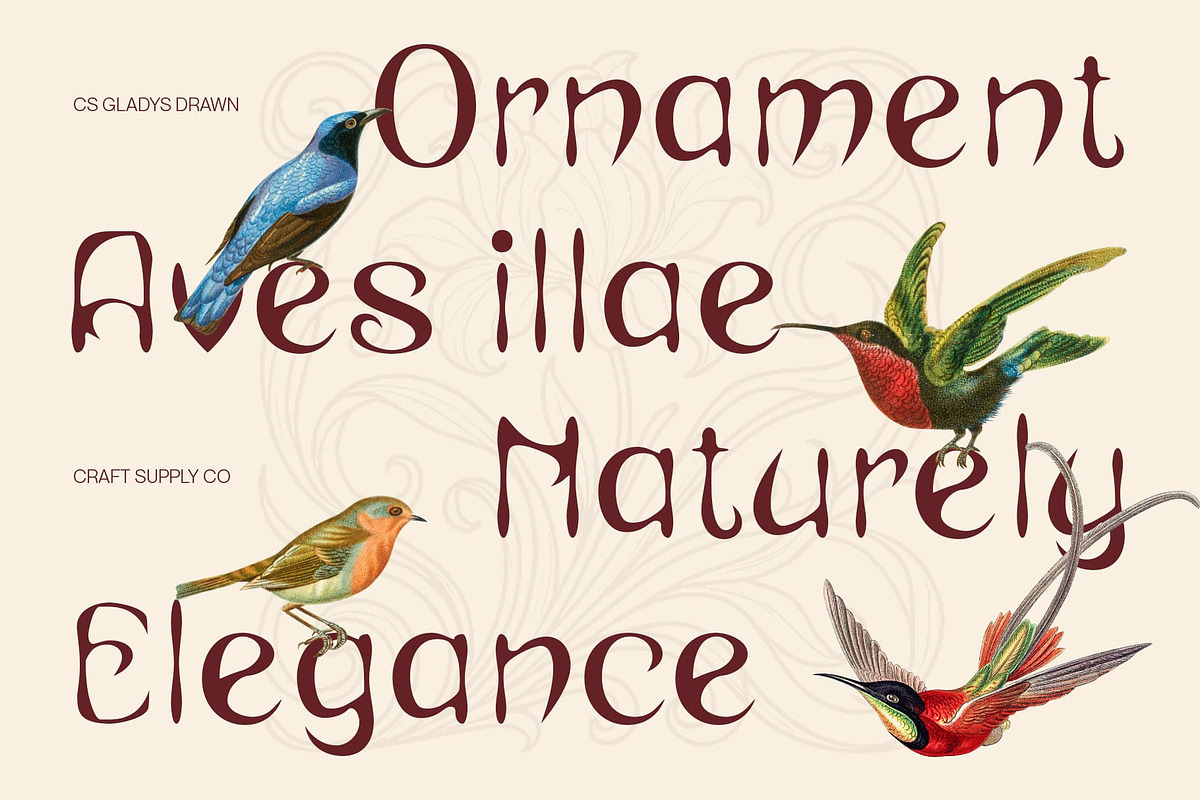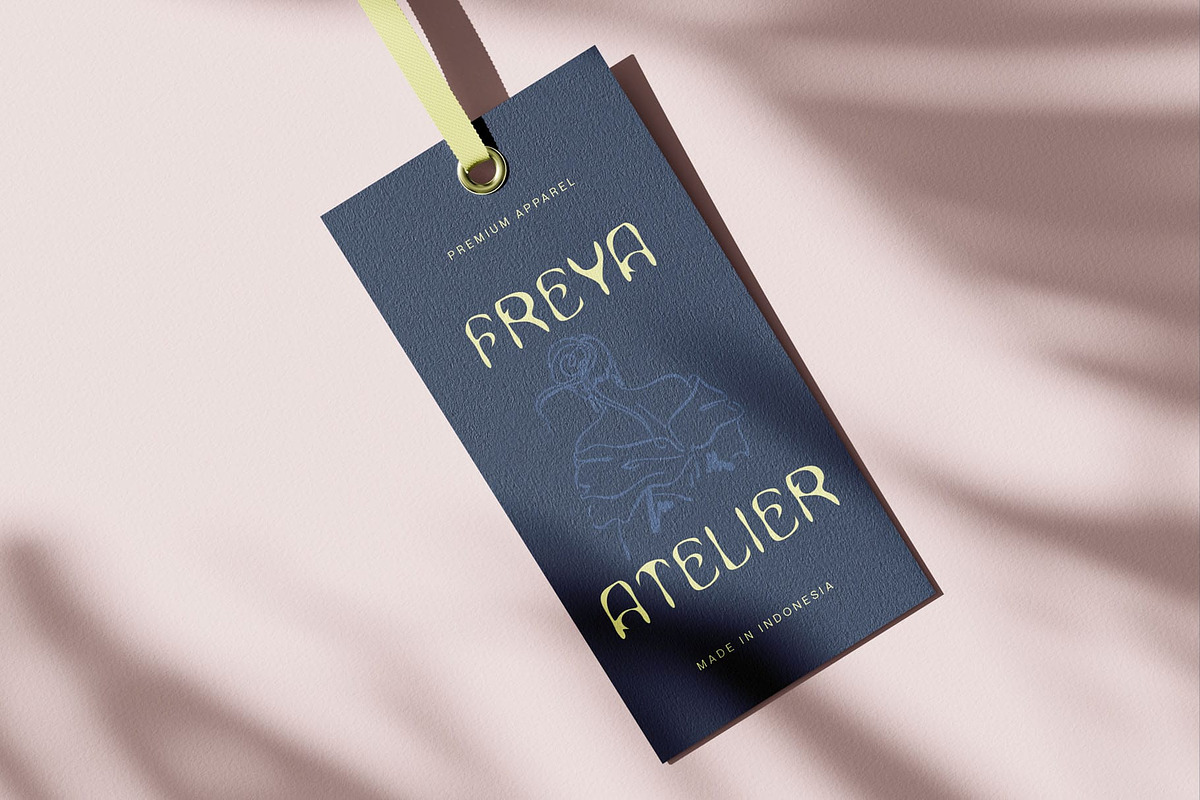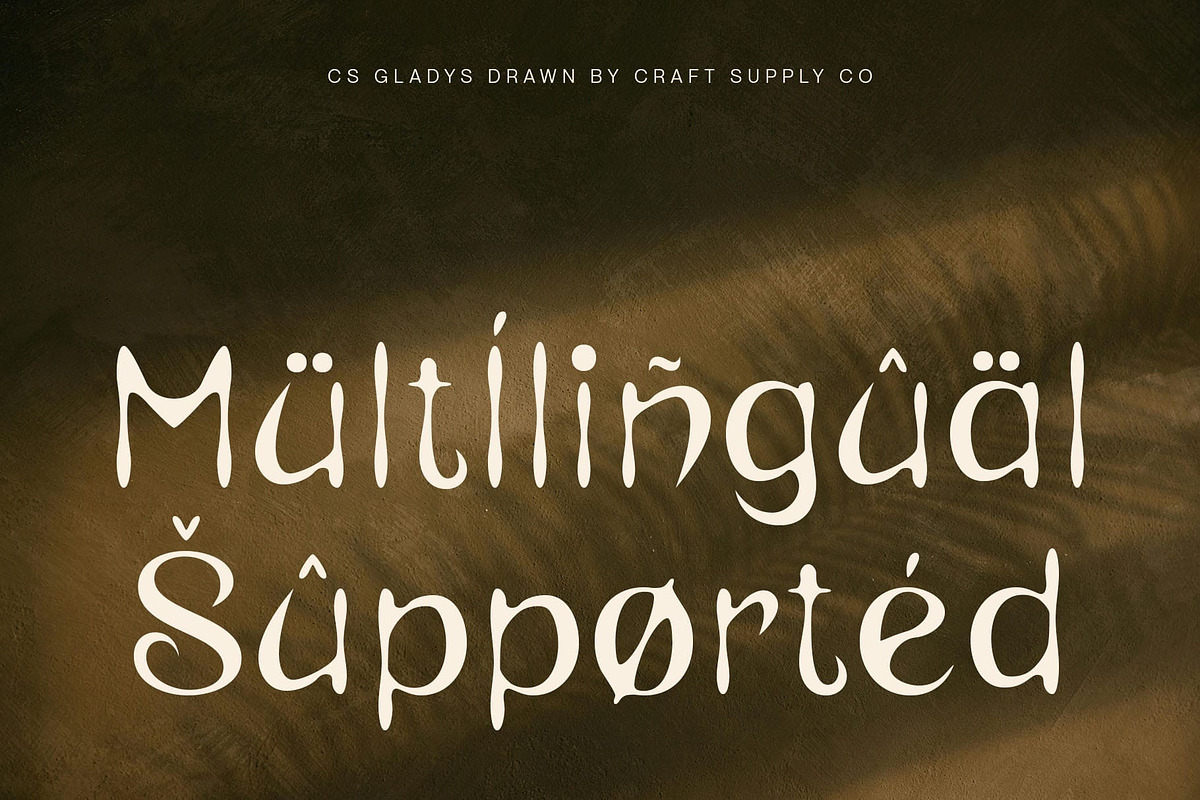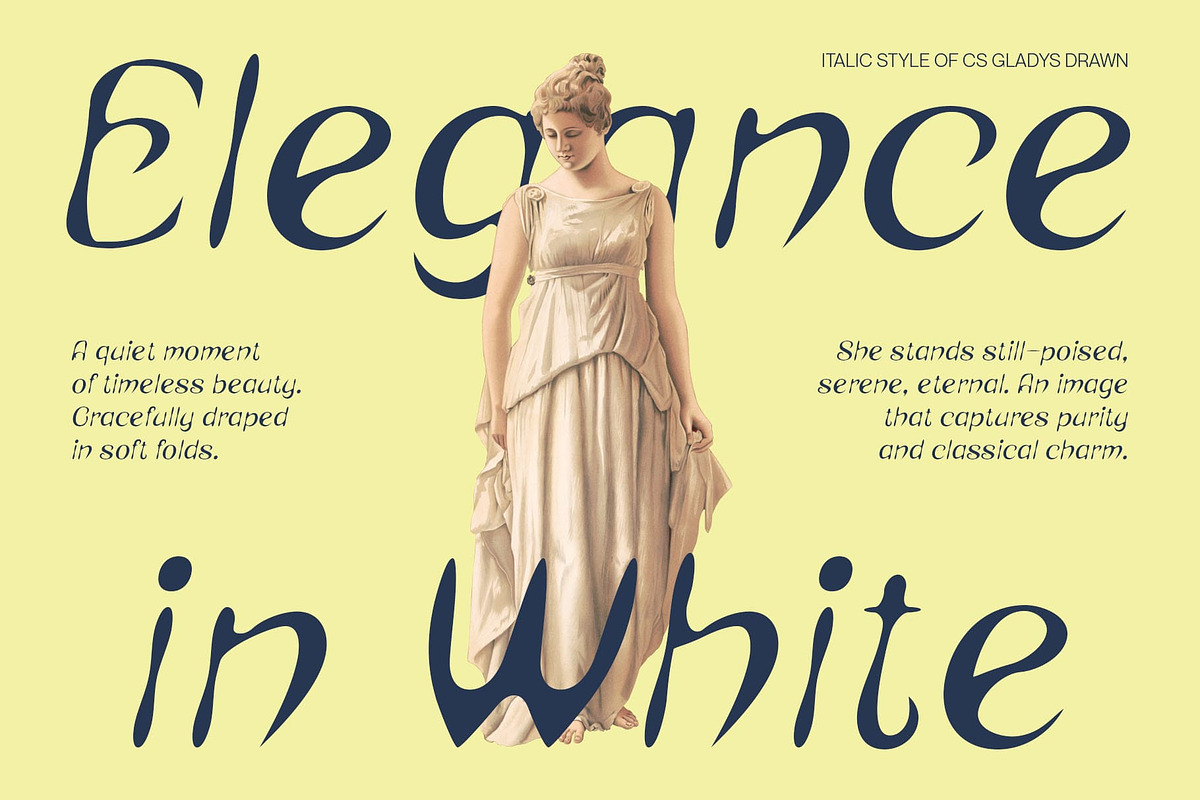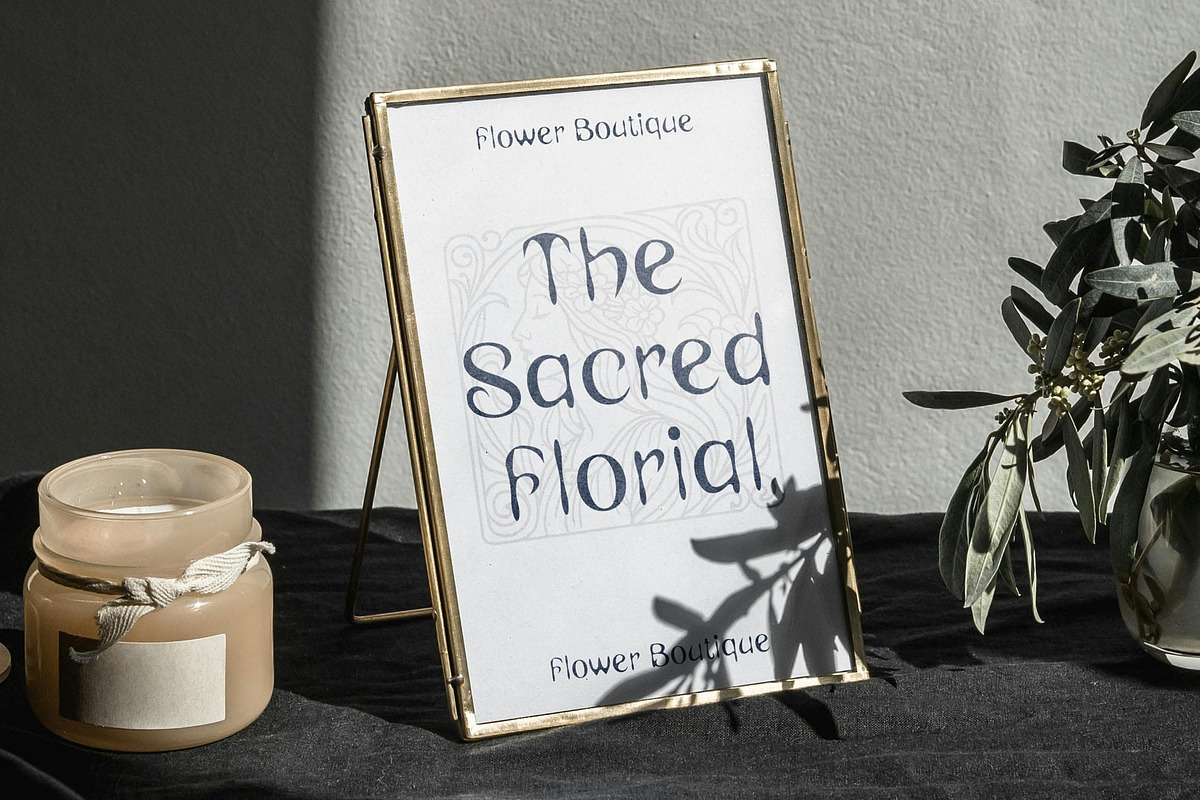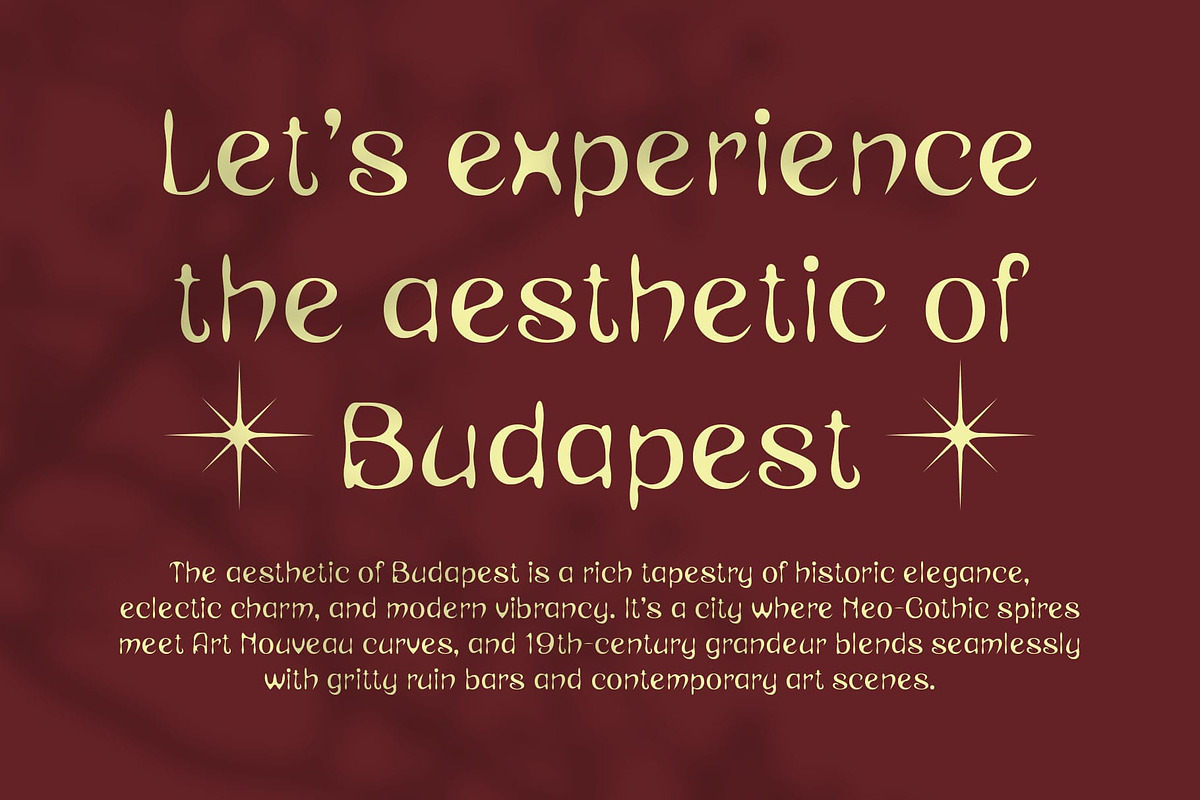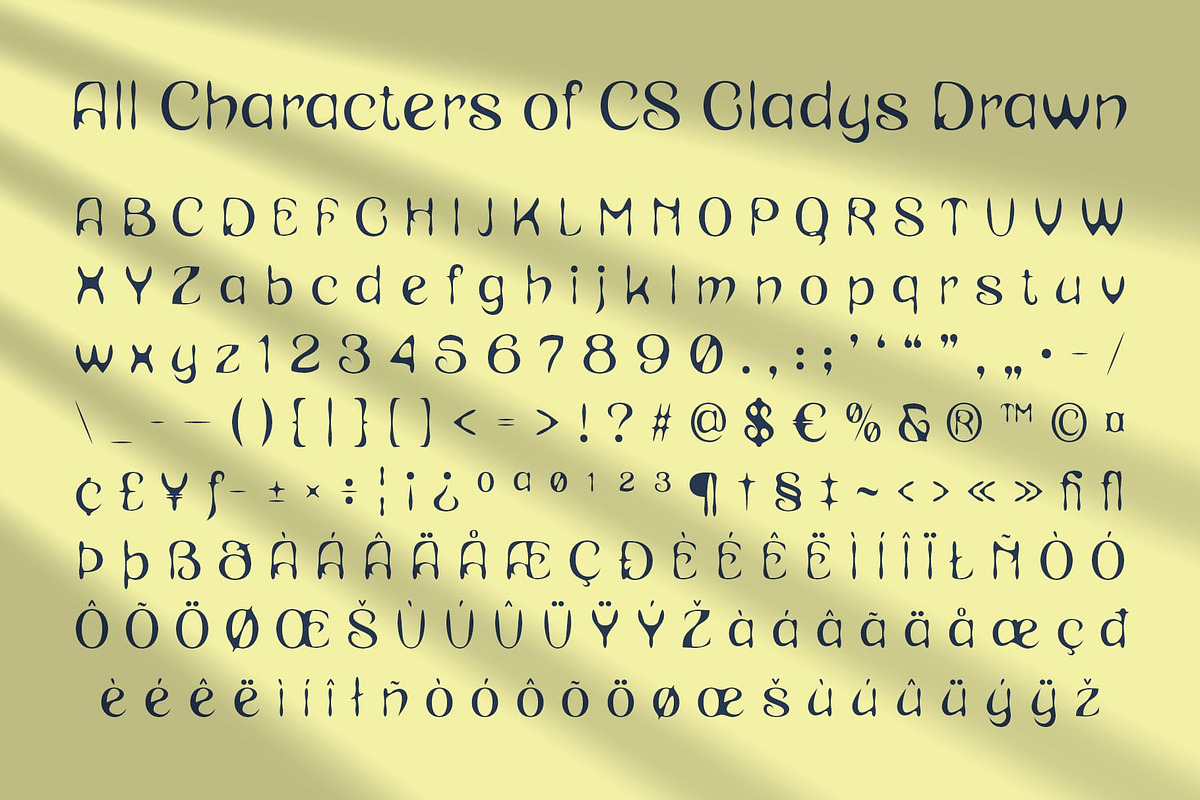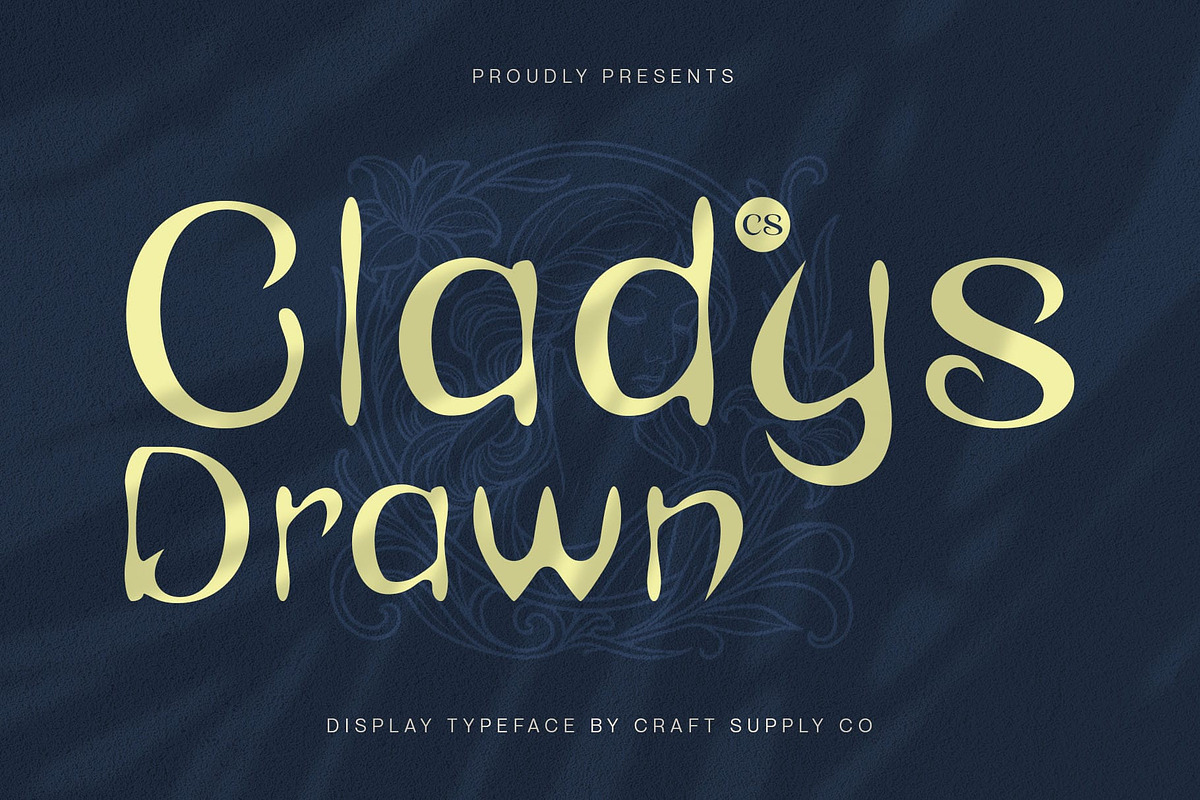
CS Gladys Drawn
CS Gladys Drawn – Funky Reverse Contrast with Handcrafted Energy
Unconventional Reverse Contrast Structure CS Gladys Drawn is a display font that flips traditional weight distribution by emphasizing thicker horizontal strokes over verticals, resulting in an eye-catching, off-kilter rhythm. This striking imbalance gives each letter a bold, dynamic presence that commands attention.
Funky, Expressive Letterforms Infused with playful curves and unexpected angles, the font’s funky character breaks free from the ordinary. Its lively shapes and vibrant energy make every word feel spontaneous and full of personality, ideal for designs that refuse to blend into the background.
Hand-Drawn Texture for Warmth and Authenticity The drawn effect introduces an organic, handcrafted texture that softens the geometric boldness of the reverse contrast. Subtle line variations and tactile imperfections bring warmth and a uniquely personal flair to each character. What sets this playful font apart is its handcrafted look. The drawn effect adds texture and imperfection in just the right places, lending a personal and artistic feel to the entire typeface. The organic lines give it depth and a human touch—ideal for creative projects that embrace authenticity and individuality.
Perfect for Bold, Creative Projects Whether you’re crafting music posters, experimental layouts, or standout branding, this expressive font delivers a distinctive look. Its fusion of avant-garde structure and artisanal charm makes it the go-to choice for any project seeking a bold, artistic statement.